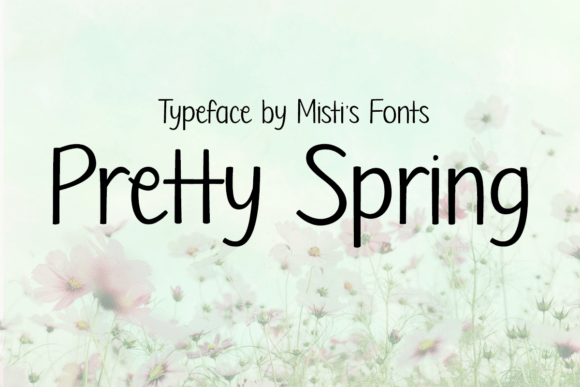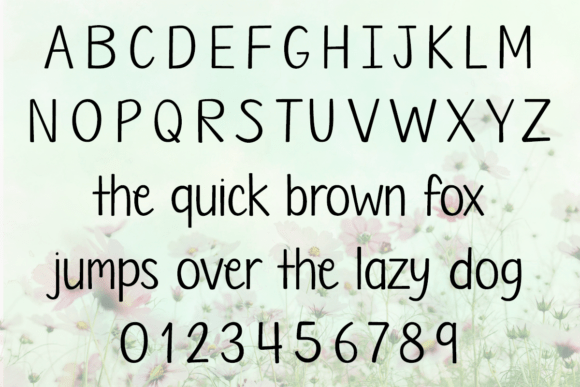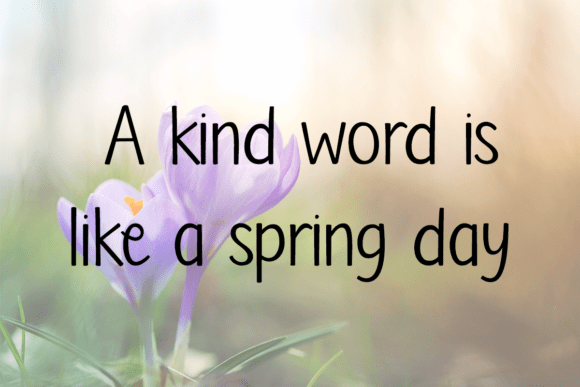
About the Pretty Spring Font
The wait is over! The incredible Pretty Spring Font is now available for your design toolkit. Pretty Spring is a cute handwritten font full of charm and whimsy. Perfect for invitations, quotes, branding, and more, it adds a touch of warmth and personality to any project. Let your designs bloom with the cheerful spirit of Pretty Spring!
Its charming, informal style makes it ideal for projects requiring a friendly and approachable feel, such as wedding invitations, greeting cards, or branding for artisanal food products. It also works well in short social media posts or headlines where its playful nature can shine. However, its handwritten nature makes it less suitable for large blocks of text or UI elements where readability is paramount.
Pretty Spring pairs well with clean sans-serif fonts like Open Sans or Lato for a balanced contrast, or with a more playful script font like Pacifico for a cohesive, whimsical look. Avoid pairing it with highly geometric or overly serious typefaces; the contrast would clash with its lighthearted personality.
The font’s core personality is cheerful and whimsical, conveying a sense of warmth and approachability. It’s best suited to brands targeting a young, female demographic or projects emphasizing handcrafted quality and charming aesthetics.